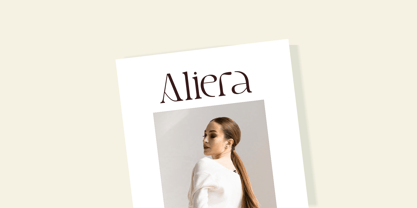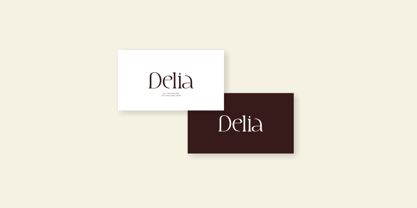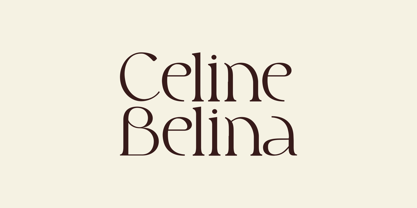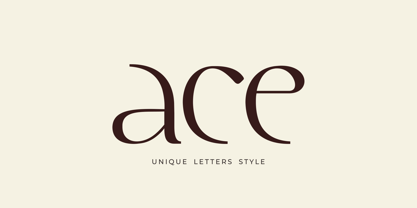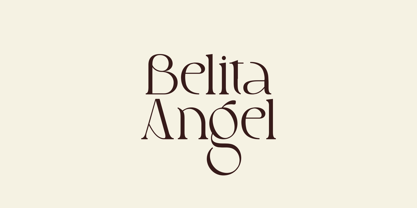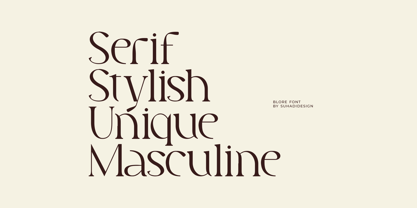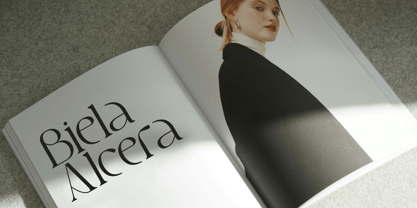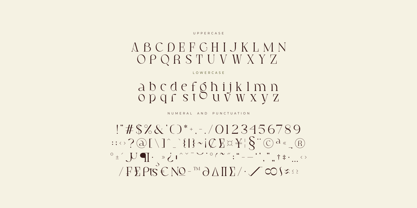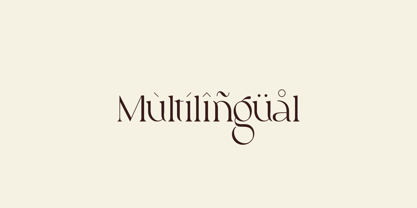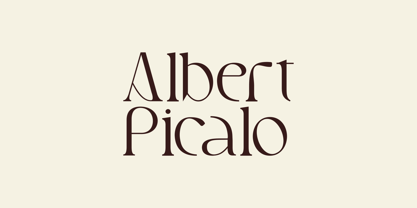
Blore
par suhadidesign
La famille de polices Blore a été conçue par ahmad suhadi et publiée par suhadidesign. Blore contient 1 styles.
Blore - Elegant Serif Font Hello, ladies and gentlemen! The latest stylish modern font has arrived, a font much sought after by both women and men. This is the Blore font. Blore is a unique and elegant serif font. With its elegant, contemporary design and up-to-date style, this font has become a favorite on the market. We maintain the elegant, classy, ​​and stylish look of this font. Blore is a perfect choice for magazines, designs, books, publications, branding, brand names, business cards, social media, classy designs, newspapers, branding, beauty, and other projects. Blore is here to elevate the quality of your designs. Stay tuned for the latest information on font creation :) Features: • Capital Letters • Lowercase Letters • Multilingual Support • Numbers • Punctuation Thank you